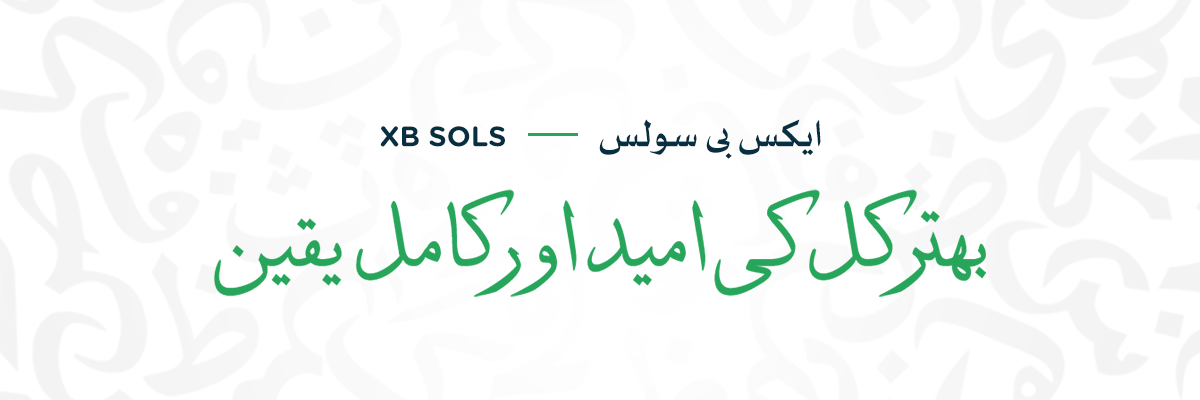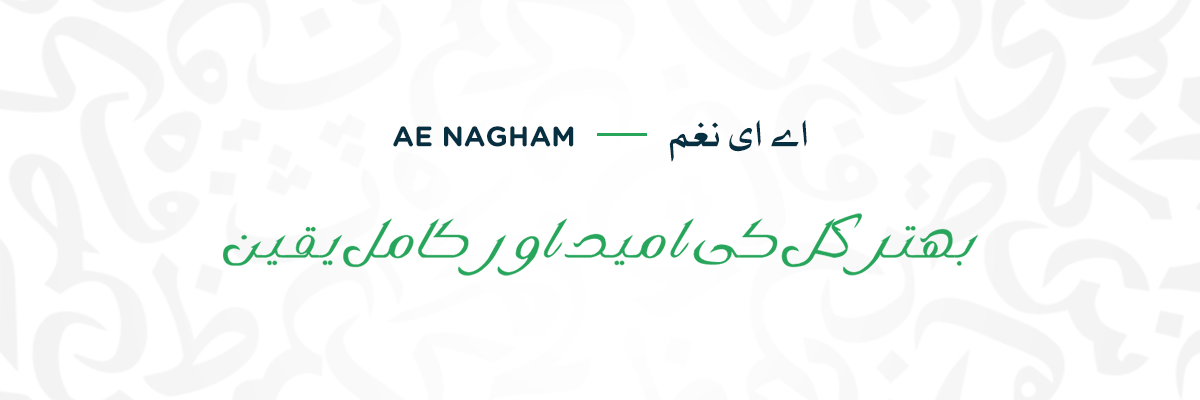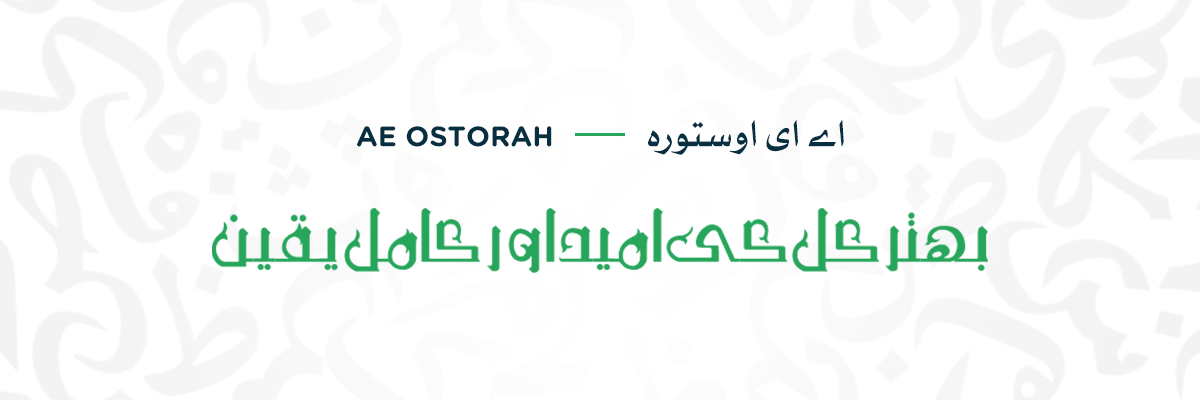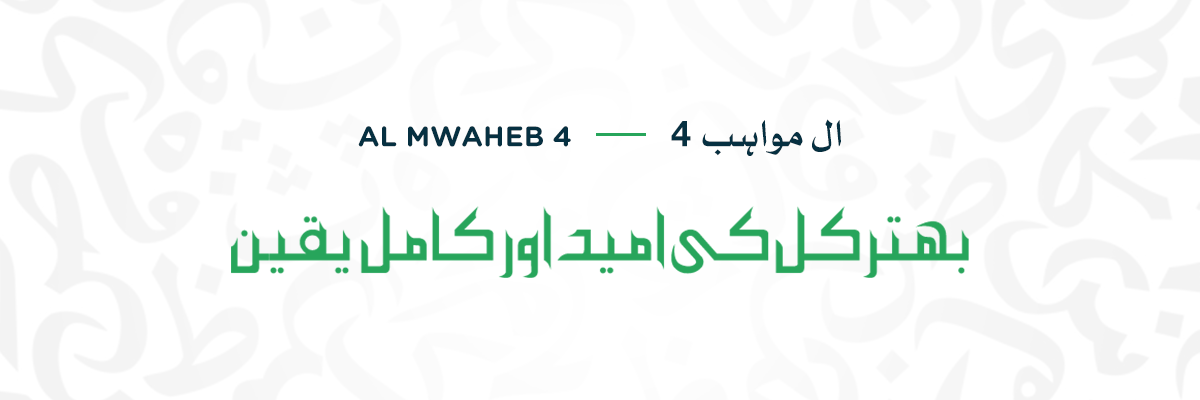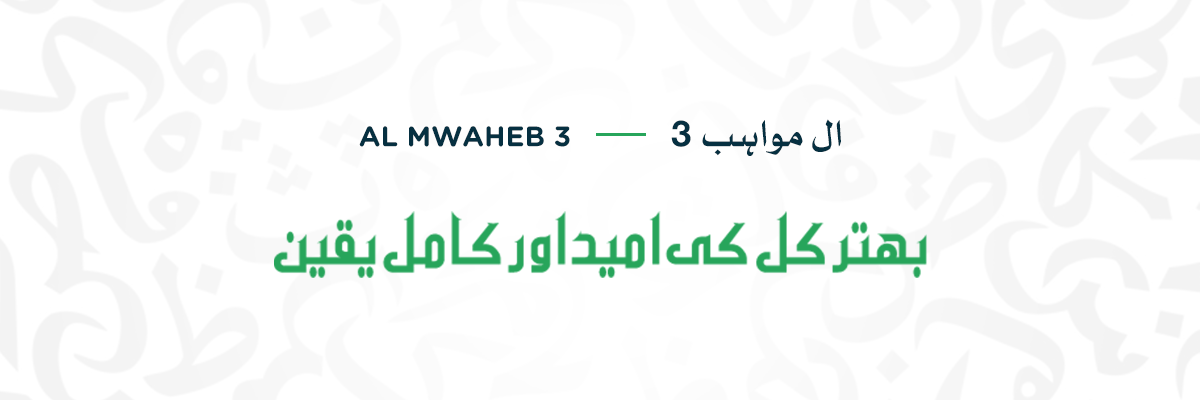
Organizing your dream wedding or your other big days can sometimes be really tiring. We have to be careful about every little thing, from the venue, menu, and even the invitations. When it comes to designing the perfect wedding card or invitation for a special event, every small detail holds weight. We want the best of the best for our special events, and choosing the right font with a perfect color scheme can turn your design from ordinary to extraordinary. A font has the ability to set the tone and reflect the real joy of your celebration. But fonts are more than just looks, the typeface you choose can have a huge impact on how your message will look and be perceived. We have made a collection of 18 elegant Urdu fonts that offer a range of styles to match your needs and preferences. From rounded and playful to sophisticated and traditional fonts, offering the best outlooks to make your boring invites more vibrant and fun. So, look into this collection of celebratory fonts with unique and eye-appealing designs and make your wedding card or invitation truly unforgettable.
Finding a font that can truly understand the theme of your event can be difficult. To ease your burden of searching, here we present you the 18 elegant Urdu fonts, offering elegance and sophistication to your cards and artworks. These fonts are specifically selected for you to cater to your specific design needs. So, let’s have an overview and see how these fonts can make your designs attention-grabbing while leaving a lasting impression on the readers.
| Sr. No | Name | Designer | Font Appearance |
|---|---|---|---|
| 1 | Al Qalam Rehan | Syed Shakir ul Qadree | Whimsical, decorative, soft rounded letters with delicate points |
| 2 | Al Qalam Khat -e-Sumbali | Attari Qadri and Muhammad Ishtiaq Ali Attari | Bold and decorative Urdu font with flowing letterforms and embellished ends |
| 3 | Tafseer | Amanat Ali Goher | Elegant, clear, beautifully thin letters with light strokes |
| 4 | Arsalan Wessam B | Arslan Wessem | Decorative, hand-written, cursive, long and overlapping terminals |
| 5 | Aldhabi | Fiona Ross, Tim Holloway, Titus Nemeth, John Hudson, Mamoun Sakkal | Cursive, flowing, elegant, historical influences |
| 6 | XB Sols | Behnam | Slanted Qalam writing font with graceful curves, sharp terminals |
| 7 | ae Nagham | Hesham Darweesh | Curved, flowing, elegant, fluid design, sophisticated details |
| 8 | ae Ostorah | Bassam Al-Mohammadi, Nadim Shaikli | Decorative calligraphy, ornate, thick vertical characters, cursive ribbon-like ends |
| 9 | Al Mwaheb 4 | Mohamed Amer Abdul Sami | Modern decorative, tightly spaced, well-aligned letterforms, various design elements |
| 10 | Al Mwaheb 3 | Mohamed Amer Abdul Sami | Modern decorative, wide and well-aligned letterforms, various design elements |
| 11 | Resalaty Arabic DEMO | Nur Syamsi | Handwritten, adorable, stylish, thin and irregular letters |
| 12 | AlQalam Ishtiaq | Muhammad Ishtiaq Ali Attari | Condensed calligraphic Urdu, Naskh script, varying curves |
| 13 | Ara Etab AlMonie’ee | Osama Alnajdi, Sanaa | Modern, Arabic, elegant, sharp with blunt corners, pointed terminals |
| 14 | Arabswell 1 | Unknown | Ink-writing, slightly irregular thick letterforms, long curly terminals |
| 15 | MB Leeka Shabir Kumbhar | Abdul-Majid Bhurgri, Shabeer Kumbhar | Bold, decorative, ornamental script, Islamic calligraphy |
| 16 | Photex Decorative Nastalique | Shehzad Ashiq Ali | Decorative Nastalique, floral designs, beautifully designed soft curves |
| 17 | Sarem Hisbullah | Sanaullah Mangnejo Sarem | Bold, cursive Sindhi, compact, horizontal emphasis, subtle slant |
| 18 | AL Gemah Badr | Fazlur Rahman Quraishi | Bold, wide Arabic, decorative elements, sharp and flowing terminals |
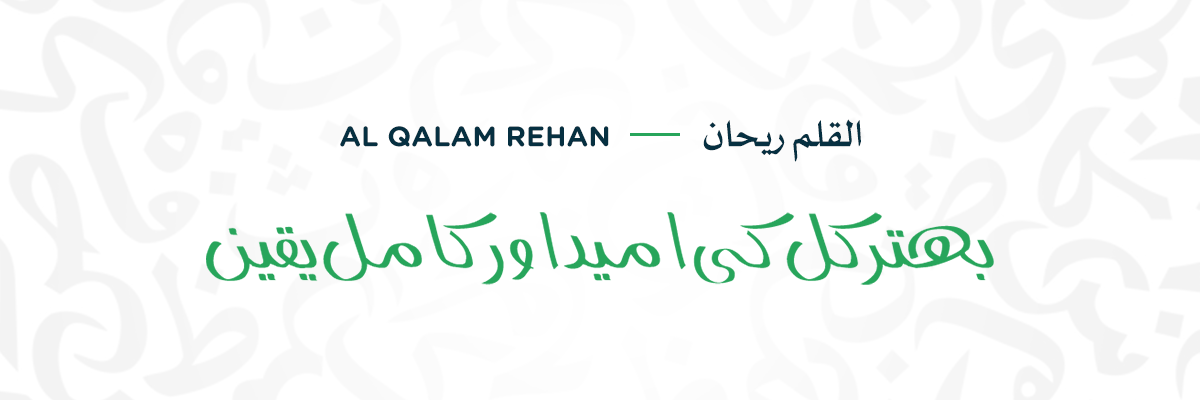
Al Qalam Rehan which is designed by Syed Shakir ul Qadree, is a elegant Urdu font and decorative party-style font. the font has soft, rounded letters with pointy corners, giving off a lighthearted feel. While its beautiful elongated curly tails give this font a playful charm. The cursive style with changing thick and thin strokes and decorative dashes give it a unique and stylish outlook. The handwritten feel of this font allows it to look more natural and fun. You can use this font for your birthday invitation cards or for posters and banners for events.
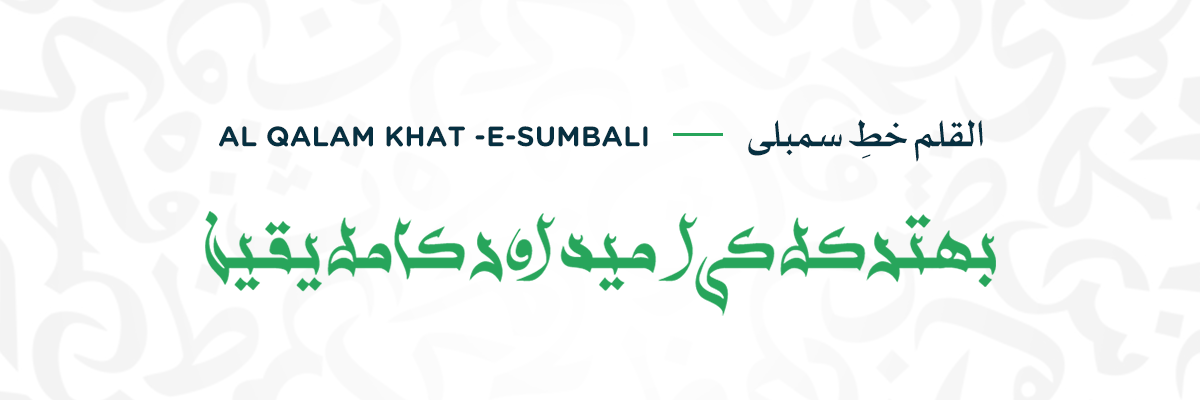
Al Qalam Khat-e-Sumbali, designed by Attari Qadri and Muhammad Ishtiaq Ali Attari, is a bold and decorative Urdu font. Inspired by the Diwani script, it has some decorative elements that make it appear a little complex. Its changing thickness with dynamic strokes creates a visually pleasing appearance for the readers. Whereas its sharp corners and stylistic elements add grace. This elegant Urdu font can be used for making design motifs or even for titles on cards. However, combining it with a less decorative font can make the overall appeal of your design more striking.
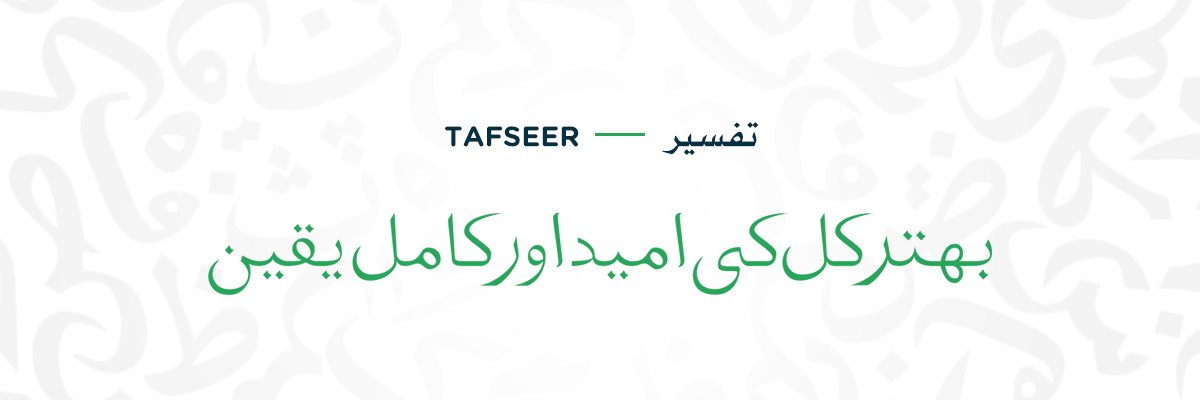
Tafseer is an elegant Arabic font crafted by Amanat Ali Goher, based on the Nastaliq script. It features thin, beautifully light strokes and generously spaced letters. The neat appearance of this font results in high legibility and a classic appearance. As this font does not involve any complex design elements, so it is higly readable The timid nature of this font suggests that it’s a professional font rather than a celebratory one. Therefore, it is perfect for business-related invitations, work cards, or for some other official purpose.
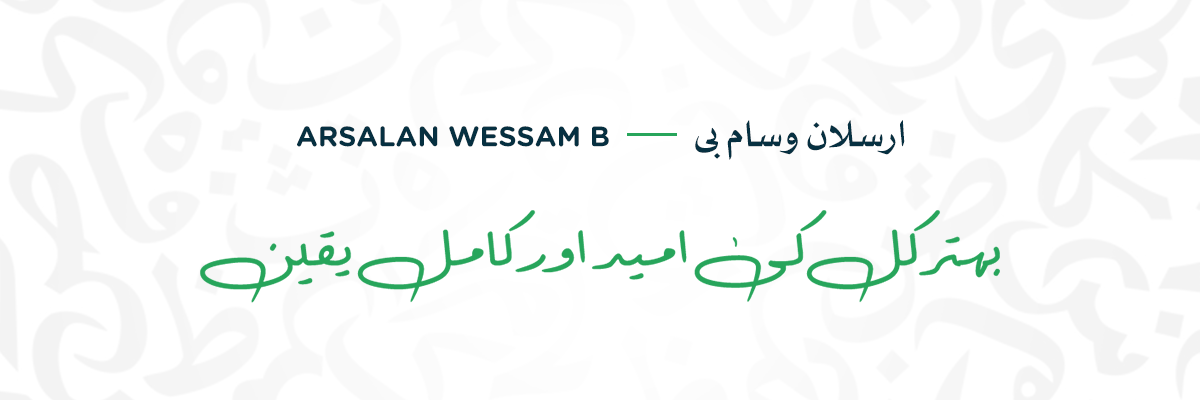
Arsalan Wessam B, designed by Arslan Wessem, is a decorative, hand-written Arabic font with a flowing appearance. Inspired by the Divani script, the font has elegant and cursive letterforms. It likewise has long and overlapping terminals which adds a light feel to your Urdu text. Due to its soft edges, uneven spacing, and subtle roundness in its letters, the font has a very natural appearance. The font adds a unique and special touch to your different design tasks. It can be used for designing event invitation cards especially for literature or poetic events.